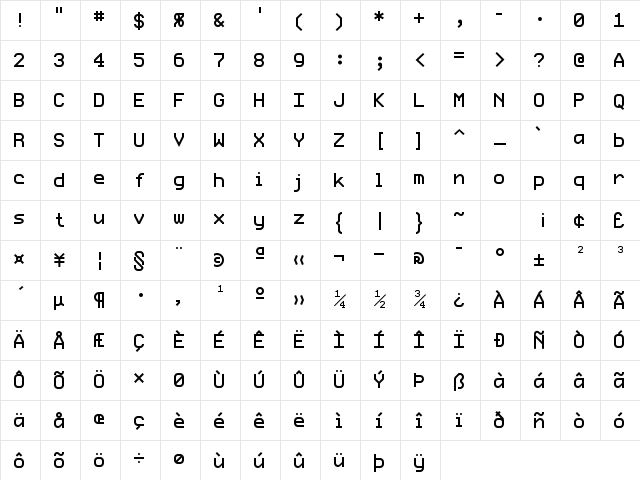
Complete ProFontWindows Nerd Font Book glyph index. Displaying only characters natively supported by ProFontWindows Nerd Font Book font.
ProFontWindows Nerd Font is a composed and adaptable typeface that performs quietly and consistently across a wide range of design contexts.